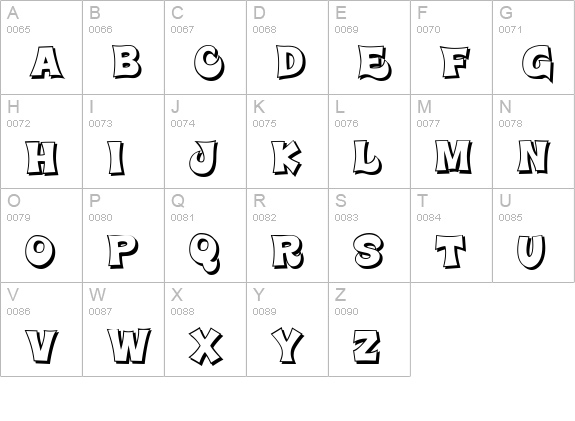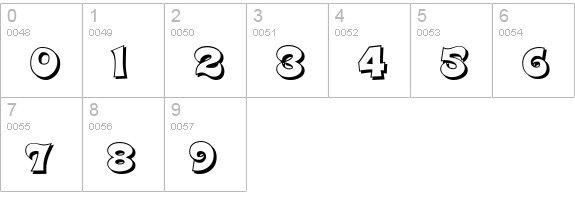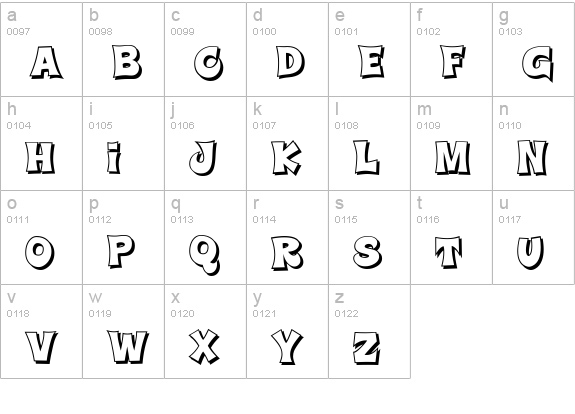
Super Delicious BTN Shadow Font Details
Super Delicious BTN Shadow font is a stunning display typeface that will add a touch of elegance and sophistication to your design projects. With its bold and eye-catching appearance, this font is perfect for headlines, logos, posters, and more. The shadow effect gives it a unique and modern look that will make your text stand out. The best part? Super Delicious BTN Shadow font is completely free to download at FontsMarket.com. Whether you're a graphic designer, a blogger, or just someone looking to spice up their projects, this font is a must-have in your collection. Don't miss out on this opportunity to enhance your designs with the beauty and charm of Super Delicious BTN Shadow font. Download it now and take your creativity to the next level!